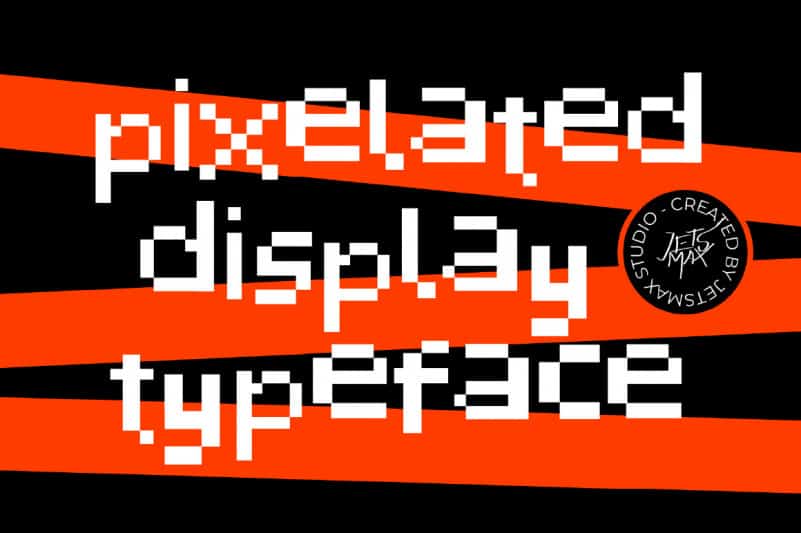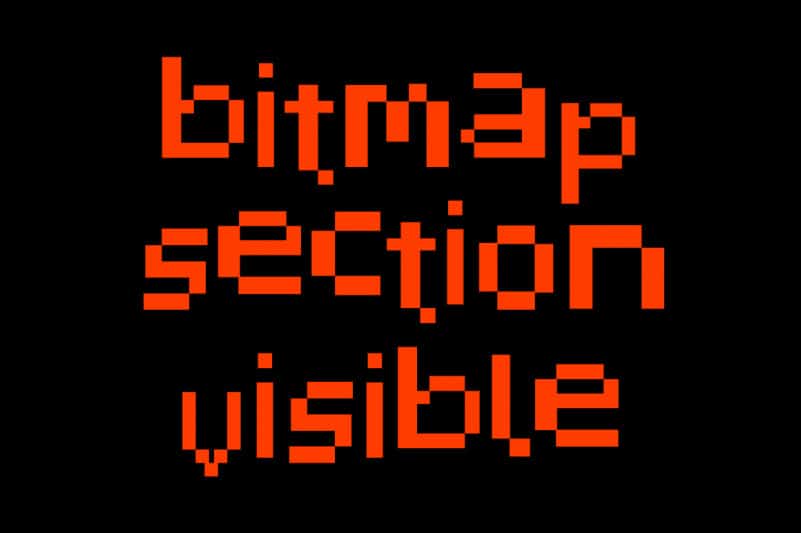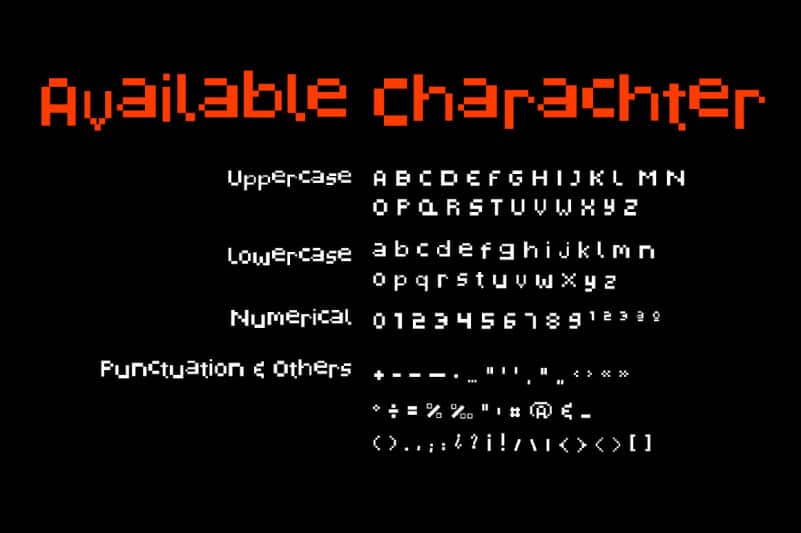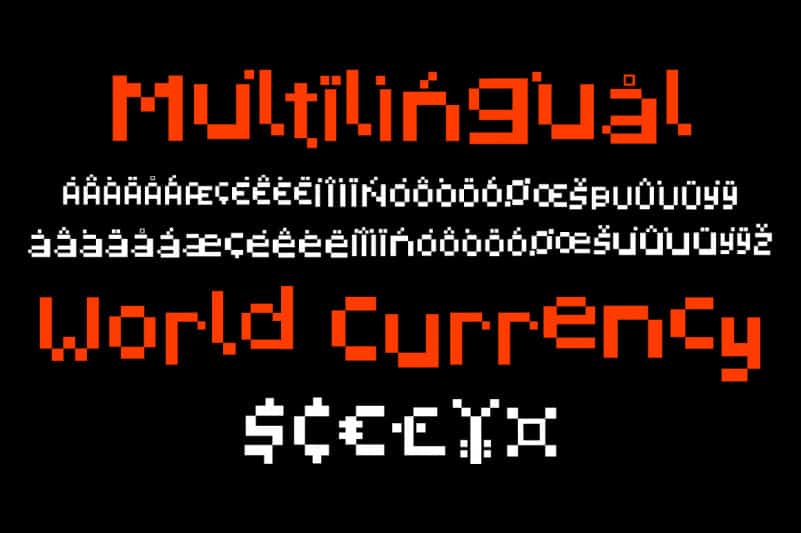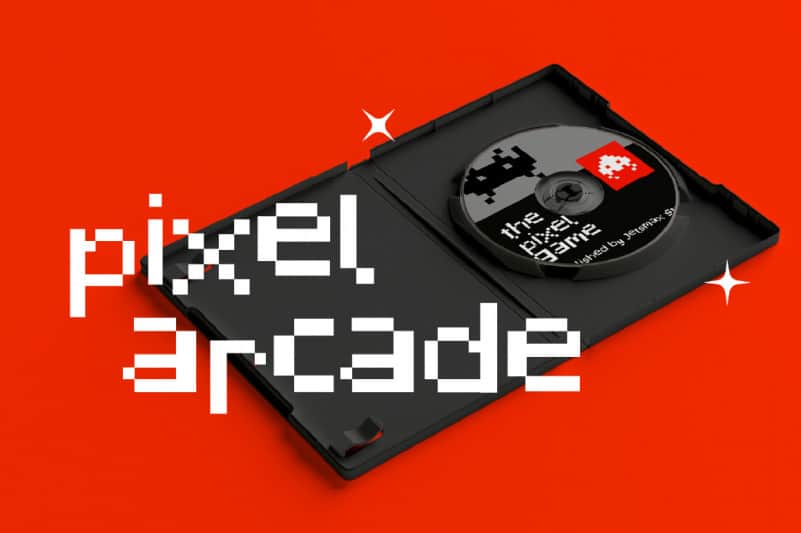
Pixelated Display Font
Pixelated Display Font is a trendy pixel font inspired by a popular game from the 80s. This font will elevate any of your design.